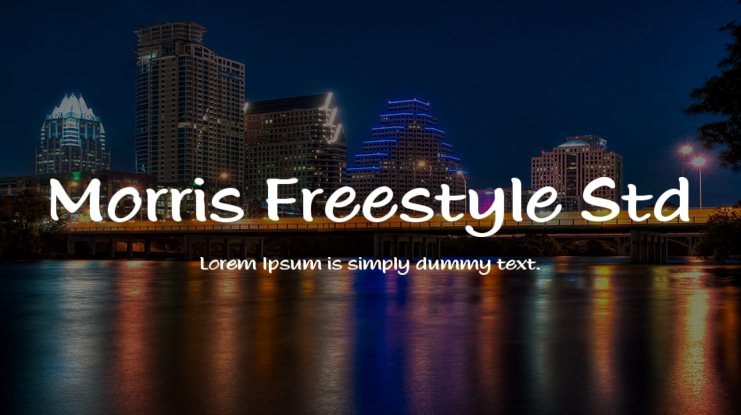
Morris Freestyle Std Font
Keith Morris
Morris conceived Freestyle for those occasions when many words must fit in a confined space.
He also wanted the face to work well in large sizes, where only one or two words are used.
The result is a friendly, casual script of remarkable versatility.
To give the design added personality and verve, Morris created a suite of swash caps that are available in OpenType format.